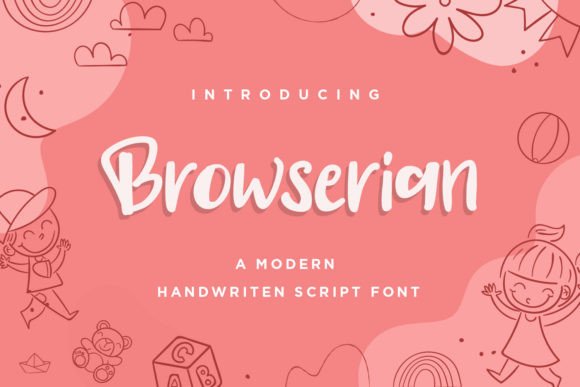
Looking for the perfect font to add a touch of romance and whimsy to your project? Look no further than Browserian Font! This exquisite script font, created by Naharstdio, is the perfect choice for anyone seeking a delicate and graceful design that captures the heart.
With its soft curves and gentle strokes, Browserian Font exudes a sense of beauty and elegance that is sure to captivate your audience. Whether you're creating a wedding invitation, a love letter, or a cool book, this font is the perfect choice to convey your message with style and sophistication.
But Browserian Font isn't just a pretty face - it's also highly functional, with excellent legibility and readability. Its stylish and eye-catching design is sure to make your text stand out, while its smooth and flowing lines ensure that your message is easy to read and understand.